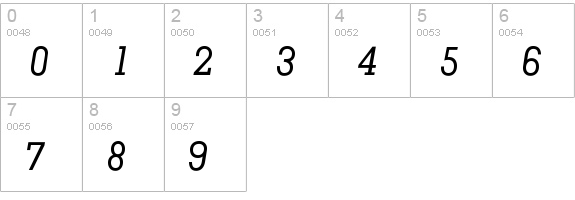
Memphis Medium Italic is a balanced, medium-weight, italic variant in the Memphis typeface family \xE2\x80\x94 well suited to sub-headlines, navigation, and balanced editorial work.
Introducing Memphis Medium Italic, a sophisticated and modern font that exudes elegance and charm. With its sleek lines and stylish curves, this font is perfect for adding a touch of sophistication to any project. The medium weight and italic styling of Memphis make it versatile and suitable for a wide range of design applications. What sets Memphis Medium Italic apart is not only its stunning aesthetics but also its accessibility. This font is available for free download at FontsMarket.com, making it easy for designers and creatives to access and use in their projects without any hassle. Whether you're working on branding materials, editorial designs, or web graphics, Memphis Medium Italic is sure to elevate your work to the next level. Embrace the timeless beauty and versatility of Memphis Medium Italic and enhance your designs with this exquisite font. Download it for free today at FontsMarket.com and unlock the potential to create stunning visuals that leave a lasting impression.